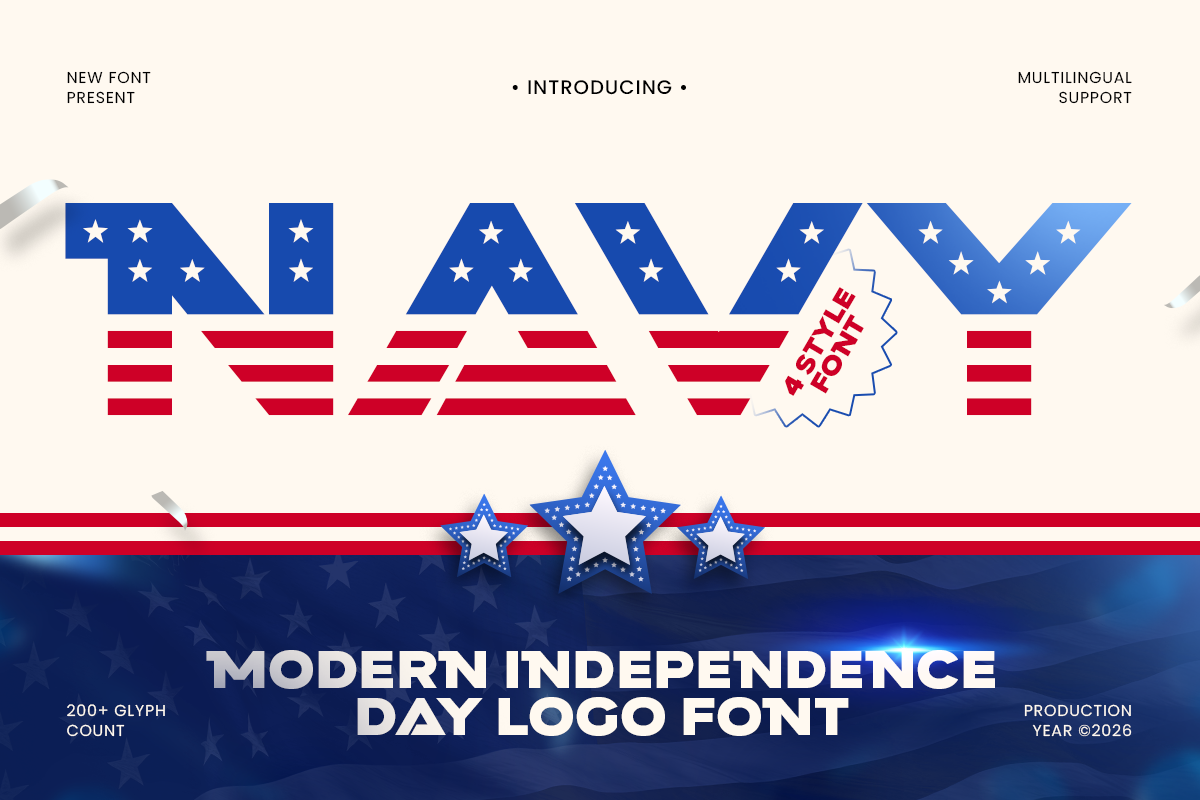
Navy
-Modern Independence Veterans Day Font
Navy – Modern Independence Veterans Day Font
Navy is a modern Independence Veterans Day font designed with a bold, honorable, and patriotic character. Inspired by military strength, national pride, and the spirit of service, Navy delivers a powerful display style that creates a confident impact in commemorative and patriotic designs.
Perfect for Veterans Day artwork, Independence Day celebrations, military branding, event posters, banners, apparel, merchandise, and patriotic campaigns, Navy brings a strong visual presence to every project. Its modern display style also works beautifully for logos, headlines, signage, social media graphics, advertising, and print materials.
As a modern military-inspired display font, Navy is ideal for veteran organizations, historical projects, freedom-themed designs, sports branding, and bold visual identities. Its versatile structure helps designers create memorable compositions across digital and print platforms while maintaining a strong and professional appearance.
Navy – Modern Independence Veterans Day Features
• Bold display letterforms with a patriotic military style
• Modern design inspired by honor and national pride
• Ideal for Veterans Day, Independence Day, and memorial projects
• Perfect for posters, banners, logos, and event branding
• Great for apparel, merchandise, signage, and headlines
• Includes uppercase, lowercase, numerals, and punctuation
• OpenType features for creative typographic flexibility
• Suitable for digital, social media, advertising, and print projects
Honor courage and freedom with Navy – a modern patriotic font crafted for powerful commemorative designs. ⚓